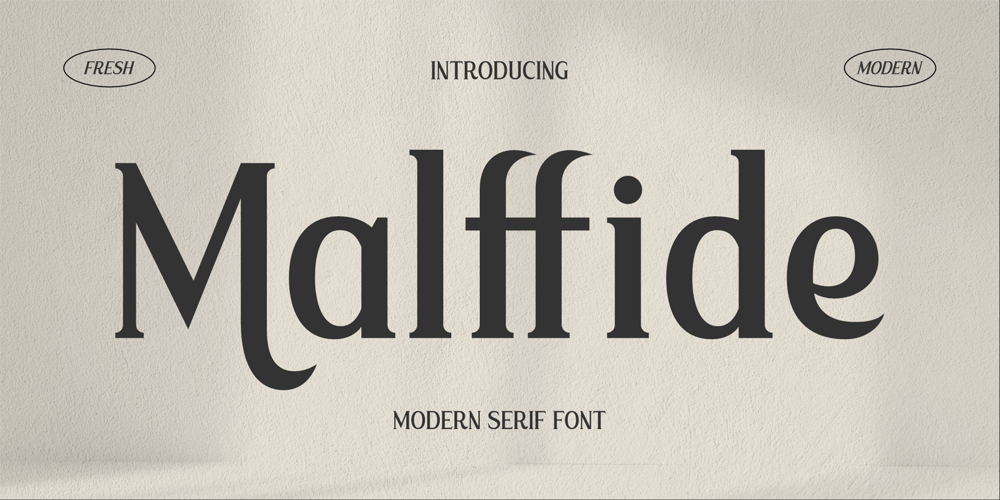
Malffide Font Family was designed by Heru Utama Putra and published by Letterena Studios. Malffide contains 2 styles and family package options. Malffide is a modern and classic Serif typeface that has its own unique style & modern look. This creative typeface is perfect for an elegant & luxury logo, book or movie title design, fashion brand, magazine, clothes, lettering, quotes, and so much more